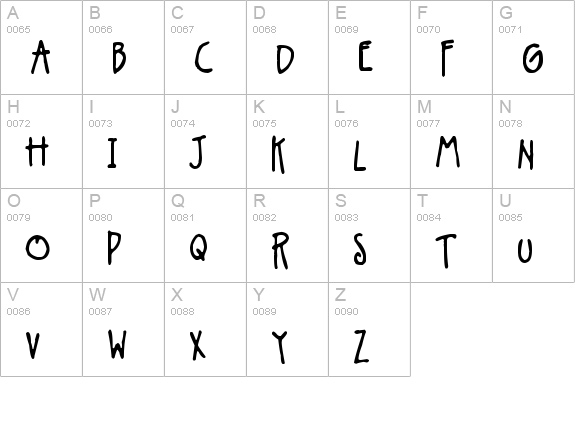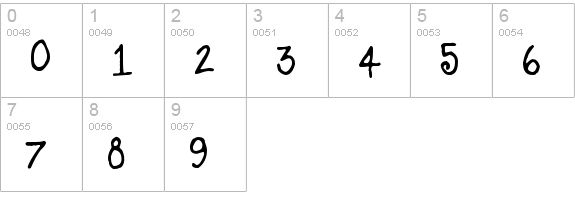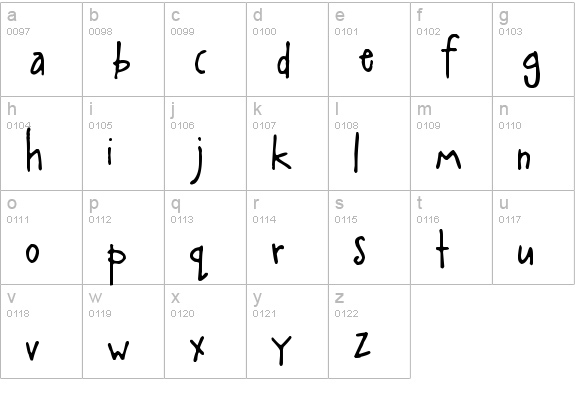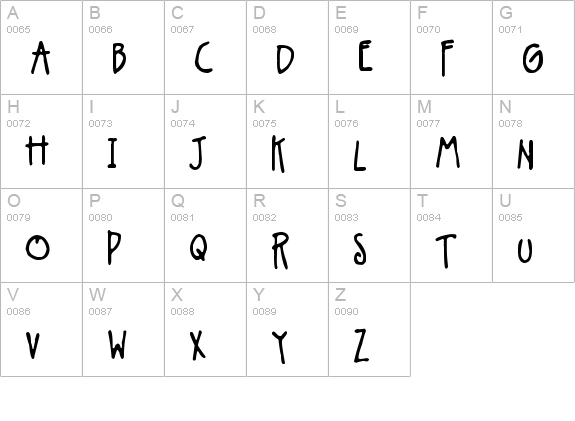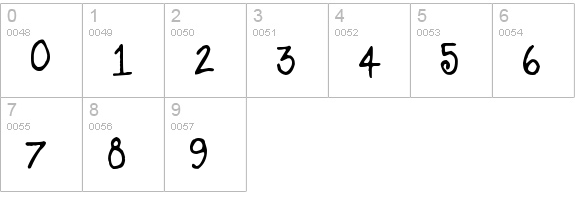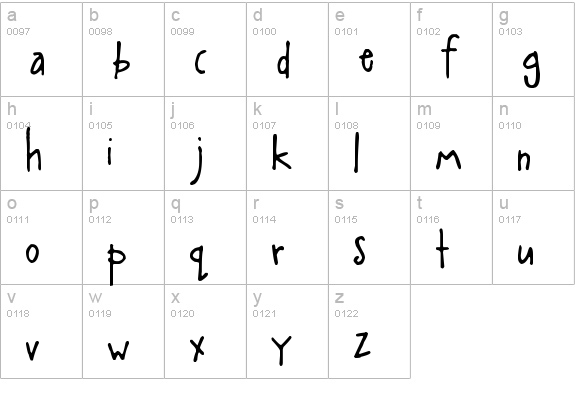
A Little Pot Font Details
A Little Pot font is a whimsical and charming typeface that exudes a playful and friendly vibe. With its unique hand-drawn style and quirky flourishes, this font is perfect for adding a touch of creativity to your designs. Whether you're working on invitations, greeting cards, posters, or branding materials, A Little Pot font is sure to stand out and make a statement. The best part? A Little Pot font is completely free to download at FontsMarket.com. That's right, you can add this delightful font to your collection without spending a dime. So why wait? Give your projects a touch of fun and personality with A Little Pot font today!